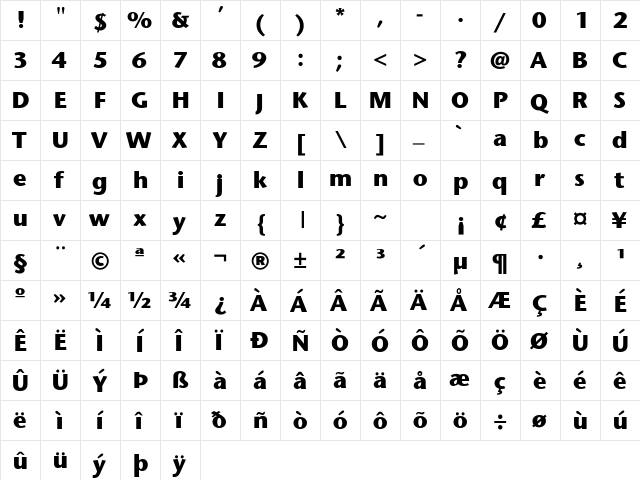
Stone_Sans-Bold Regular
Design Context for Stone_Sans-Bold Typeface
Stone_Sans-Bold offers clean, dependable letterforms without strong stylistic allegiance, making it a practical choice for designers who need flexibility. The heavy weight commands attention and anchors typographic hierarchies.